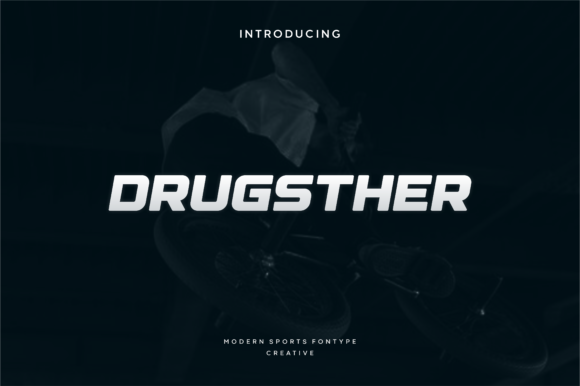
Introduction to Drugsther Font
Drugsther is a simple and sharp looking display font, that will truly inspire your works.
Why Choose Drugsther Font?
Drugsther Font offers exceptional quality and versatility, making it a valuable addition to your design toolkit. Whether you’re creating for personal projects or commercial use, Drugsther Font delivers professional results.